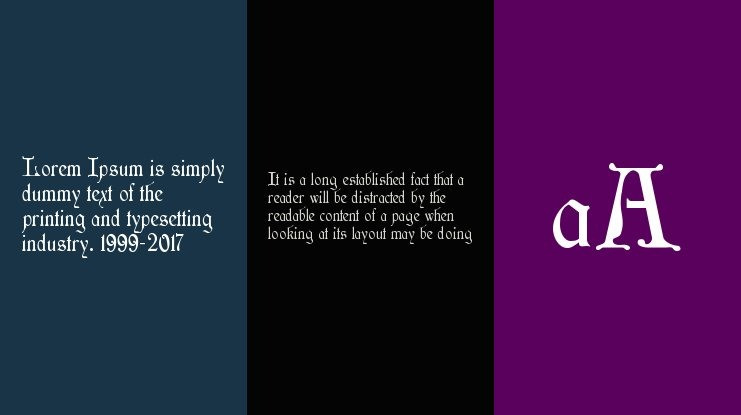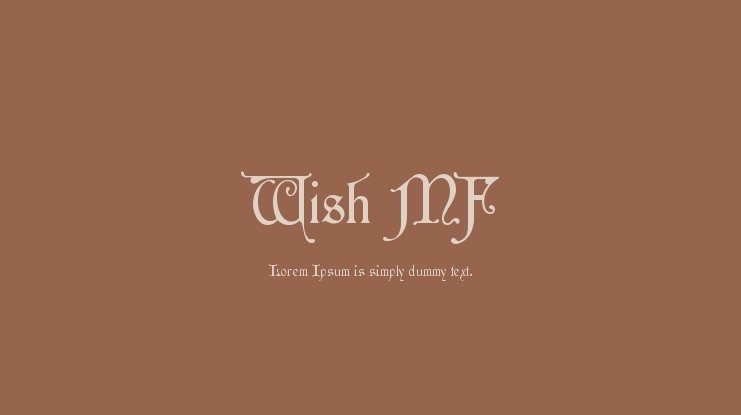
Wish MF Font, This font is perfect for stickers, retro projects, craft projects, shirts, svg designs, procreate designs, branding, blogs, logos, invitations and more!
Wish MF Font
| Designer Name: | Richard William Mueller |
| Classification: | Display Fonts, Retro / Vintage Fonts |
WishMF